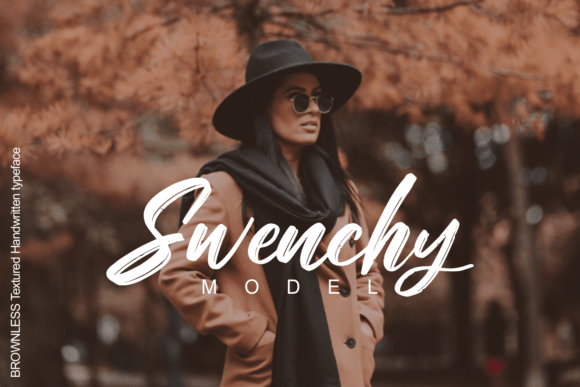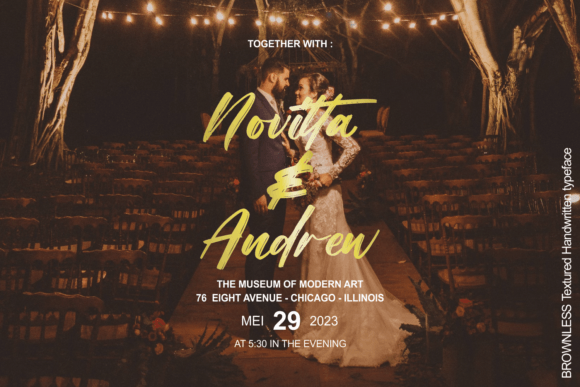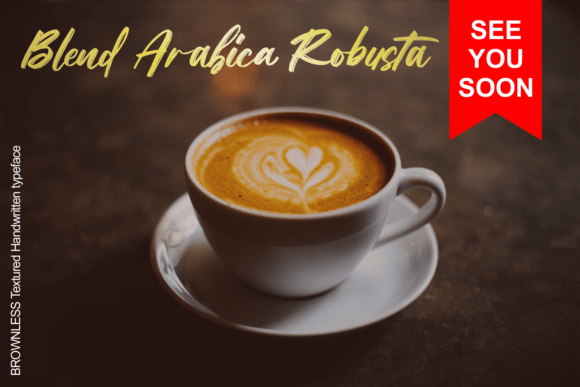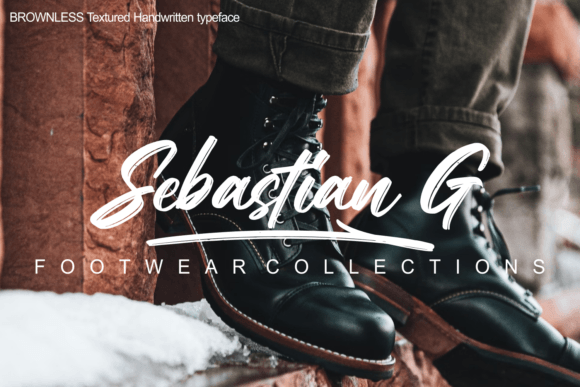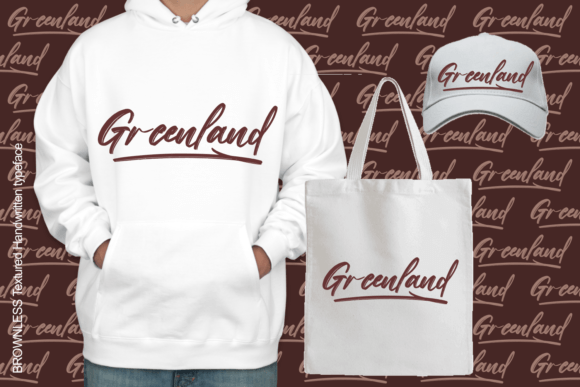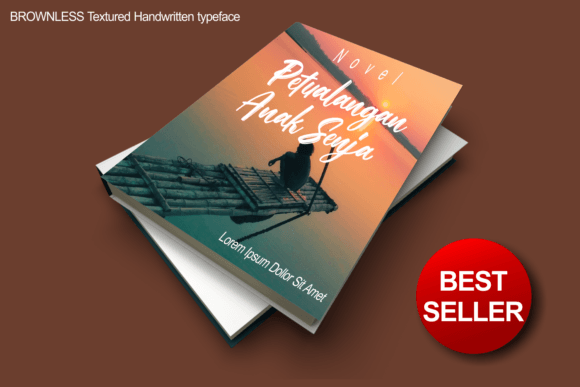
Introducing Brownless: The Modern Script Font with a Texture Brush Ink Style
Are you looking for a font that adds a touch of texture and elegance to your designs? Look no further than Brownless, a modern script font with a unique texture brush ink style. This versatile font is perfect for designers and crafters who want to create stunning visuals with a personal touch. In this article, we’ll explore the features and benefits of Brownless, and how it can elevate your designs to the next level.
What is Brownless?
Brownless is a script font that boasts a distinctive texture brush ink style, giving it a handcrafted and organic feel. The font’s modern design makes it perfect for a wide range of applications, from invitation designs and logos to badge designs, posters, packaging, book cover titles, quotes, and social media posts. Whether you’re a professional designer or a crafter, Brownless is an excellent choice for anyone looking to add a touch of sophistication and texture to their work.
Key Features of Brownless
- Texture Brush Ink Style: Brownless features a unique texture brush ink style that gives it a handcrafted and organic feel.
- Modern Script Font: The font’s modern design makes it perfect for a wide range of applications, from formal to informal.
- Versatile: Brownless is suitable for various design projects, including invitation designs, logos, badge designs, posters, packaging, book cover titles, quotes, and social media posts.
- Elegant and Sophisticated: The font’s elegant and sophisticated design makes it perfect for designers and crafters who want to create stunning visuals.
Benefits of Using Brownless
So, why choose Brownless for your design projects? Here are some benefits of using this amazing font:
- Adds Texture and Depth: Brownless’s texture brush ink style adds texture and depth to your designs, making them more visually appealing.
- Unique and Personalized: The font’s handcrafted feel makes it perfect for designers and crafters who want to add a personal touch to their work.
How to Use Brownless
Using Brownless is easy! Here are some tips to get you started:
- Pair it with Other Fonts: Brownless pairs well with other fonts, so feel free to experiment with different combinations to create unique and interesting designs.
- Experiment with Colors: The font’s texture brush ink style looks great with a range of colors, so don’t be afraid to try out different color schemes.
- Add Texture and Patterns: Brownless’s texture brush ink style is perfect for adding texture and patterns to your designs.